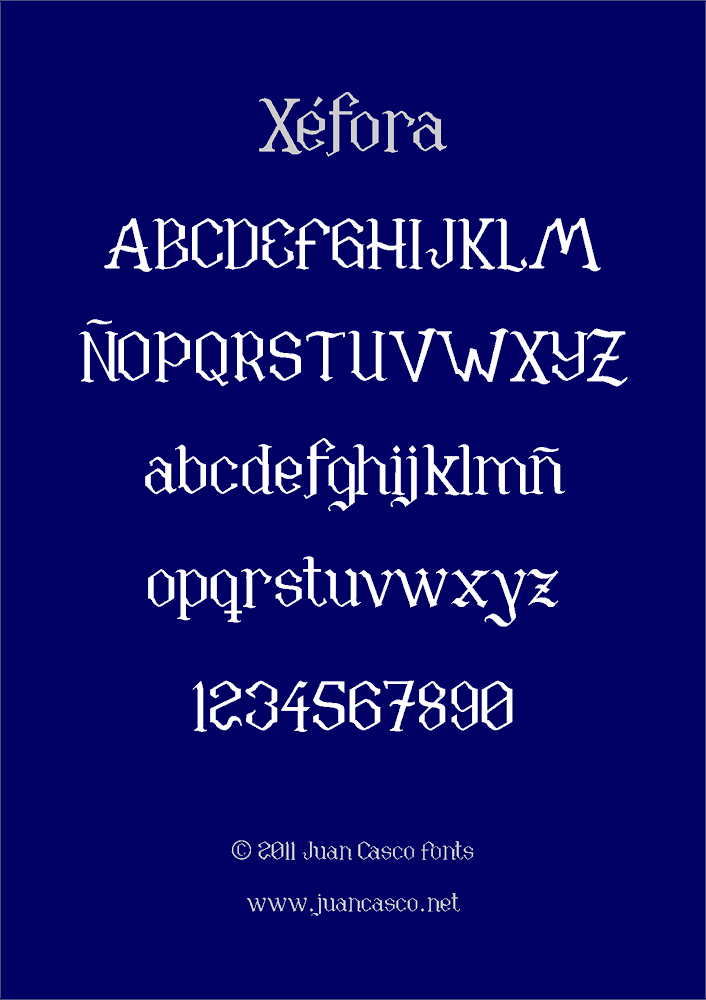
Download and enjoy this free xã©fora font. Cool typeface to showcase your designs in a modern way. Font Space has created this amazing and beautiful free font. Amaze your fellow designers and create stunning designs with this cool font.